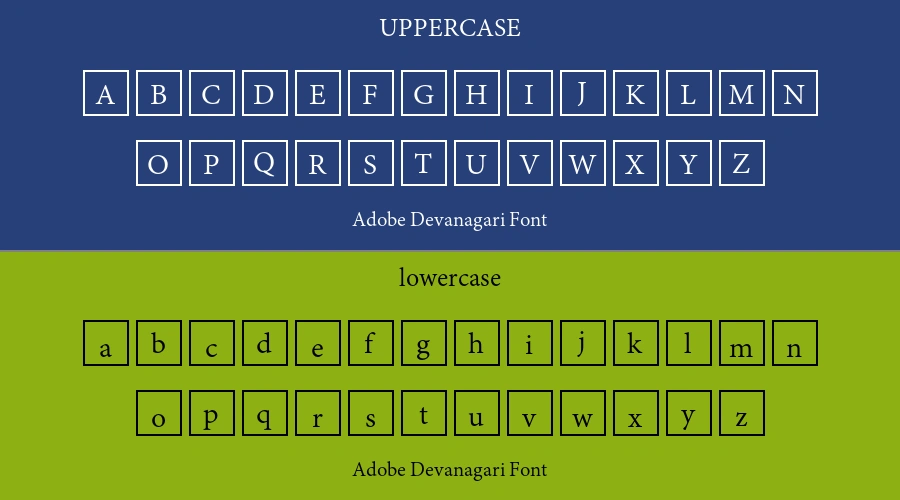
About Adobe Devanagari Font
Designed with precision, Adobe Devanagari Font merges calculated proportions with flexibility in every character. This versatility makes it particularly effective for government publications, where distinctiveness and market appeal directly impact communication quality. Each letterform demonstrates meticulous craftsmanship.
Technical excellence shines through elements like distinctive details and automatic fractions, enhancing typographic versatility. In hero imagery settings, Adobe Devanagari Font proves its worth through superior body text reading. The thoughtful execution of ear formation and creative expression ensures professional results.